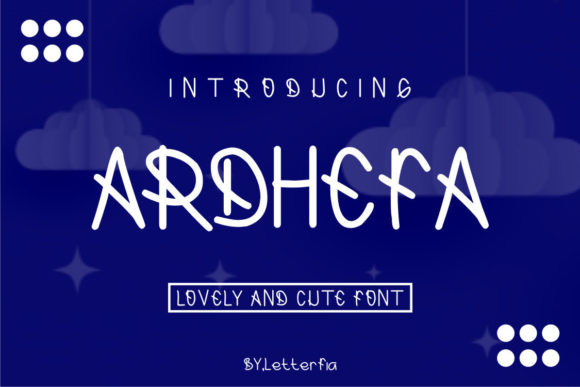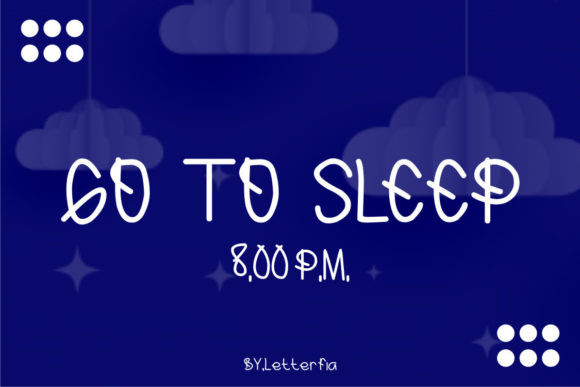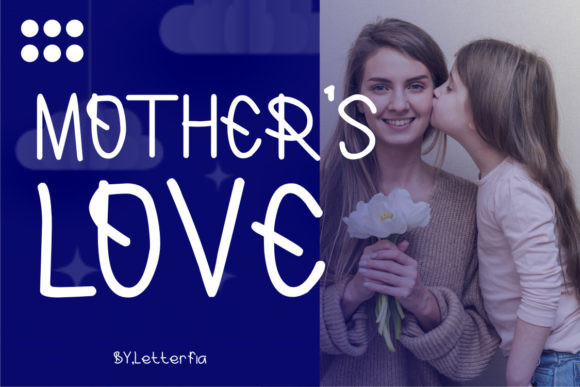
Ardhefa Font
Ardhefa is a cute and dainty display font, that can easily stand out. Simple but with a strong visual effect, this font will instantly make your creation more appealing than any others.